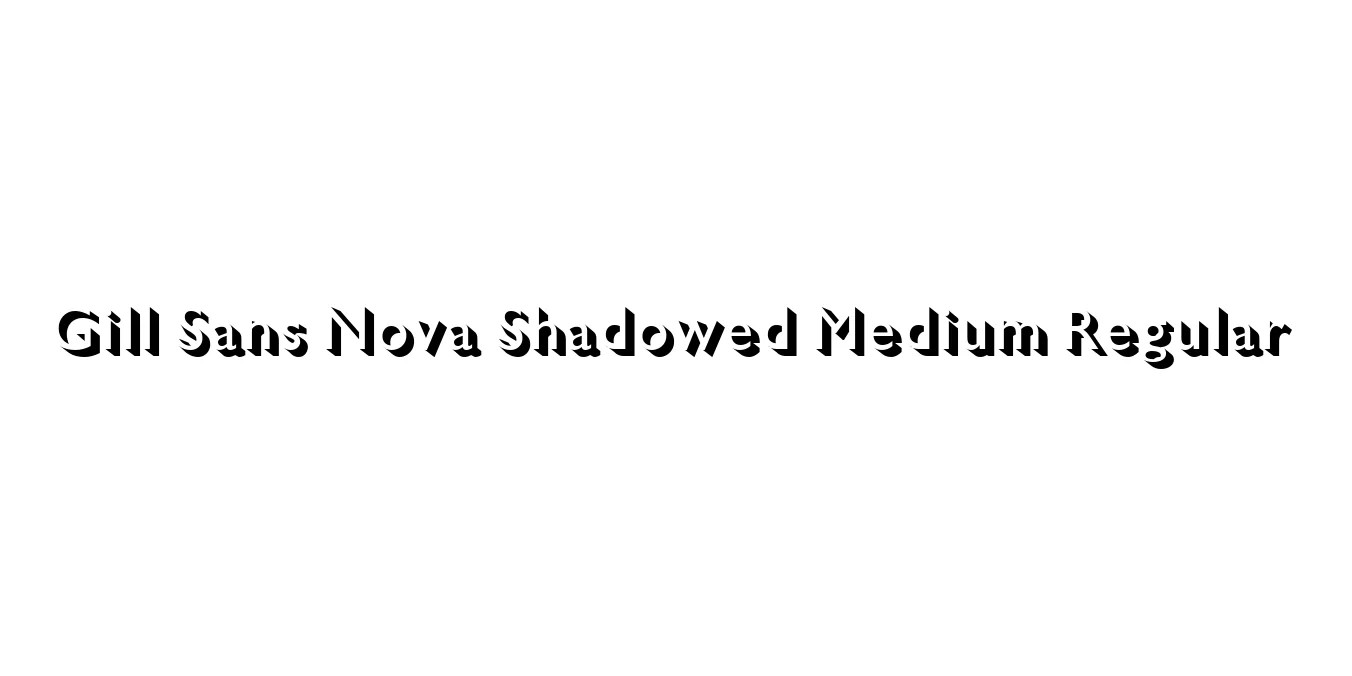
Gill Sans Nova Shadowed Medium Regular
Designed by Eric Gill, George Ryan
| Category | Sans Serif / Display |
| Designer | Eric Gill, George Ryan |
Gill Sans Nova Shadowed Medium Regular is a modern refinement of the iconic 1928 design by Eric Gill. As part of the Gill Sans Nova collection released by Monotype in 2015, this variant was specifically developed to bring back the decorative, shadowed styles that were prevalent in mid-century British typography. It maintains the signature humanist proportions that defined the original typeface while adding a sophisticated three-dimensional depth.
The typeface is celebrated for its ability to blend architectural stability with a sense of vintage elegance. The shadowed effect is meticulously weighted to ensure that the font remains legible even at smaller display sizes, making it a versatile tool for designers looking to evoke a sense of heritage and authority. It serves as a bridge between the classic era of hand-painted signage and the precision of contemporary digital type design.
Gill Sans Nova Shadowed Medium Regular Best Uses
Perfect for heritage brands and luxury retail identities seeking a classic feel.
Highly effective for bold, eye-catching headlines with a retro aesthetic.
Ideal for magazine mastheads and decorative chapter titles.
Excellent for high-end physical signage and storefront lettering.